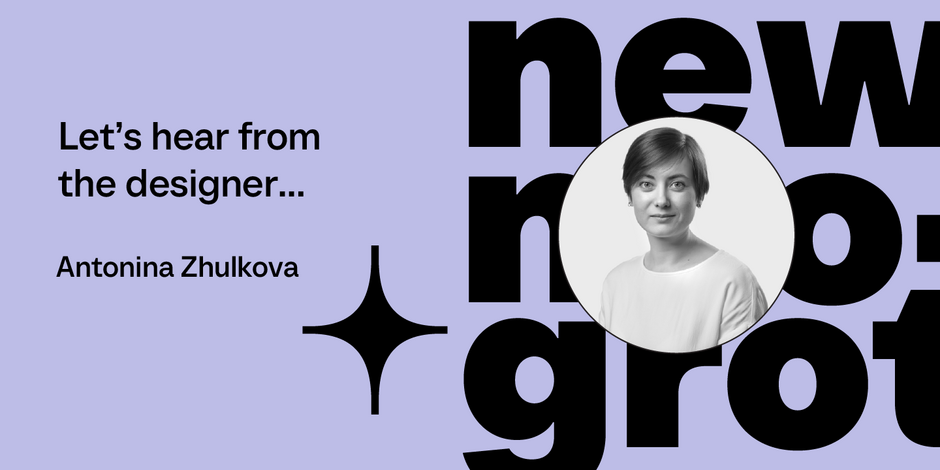
#10 TT Neoris by TypeType
Q1: Where did the idea for the typeface come from? Did you set out to address a specific use or suite of the application? Was this a design you’d had in mind for a while?
Ans: The idea of TT Neoris has been brewing in our studio for a while—we wanted to create a unique sans serif that would suit a multitude of tasks, taking into account the users’ needs and views on aesthetics. Our font family is suitable for a wide range of applications: running text or ambitious branding tasks, we hope that every person will find a perfect “shade” of graphics thanks to the diverse stylistic options integrated into the typeface.
Q2: What should graphic communicators know about the typeface, or how will the family of fonts help them create better designs?
Ans: The design of TT Neoris is highly modern and functional while staying true to the visual tradition of Neo-Grotesques. As a result, this font appears contemporary and relevant in any application, and by using stylistic sets, you can substitute many different typefaces in your project, infusing the font design with occasional surprises and impressive elements. Various font styles and an extensive character set are also capable of anticipating users’ diverse needs. We consider our TT Neoris an ideal font option when it comes to combining practical and aesthetic tasks.